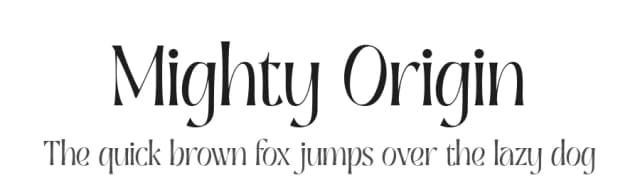
About Extra Serif Font
EXTRA Serif Font is a modern serif font whose design refers us to the style of transitional serifs.
A little bit retro and a bit modern, EXTRA SERIF FONT is great for logos, editorial or web design. The unique sharp serifs mixed with thin strokes give off a bold mid century architectural vibe.
Extra Serif Font is a versatile serif font that works for both headings and body text. Pair it with a contrasting sans-serif or slab serif font to add visual interest and a clear distinction between titles and body copy.
Extra Serif Font